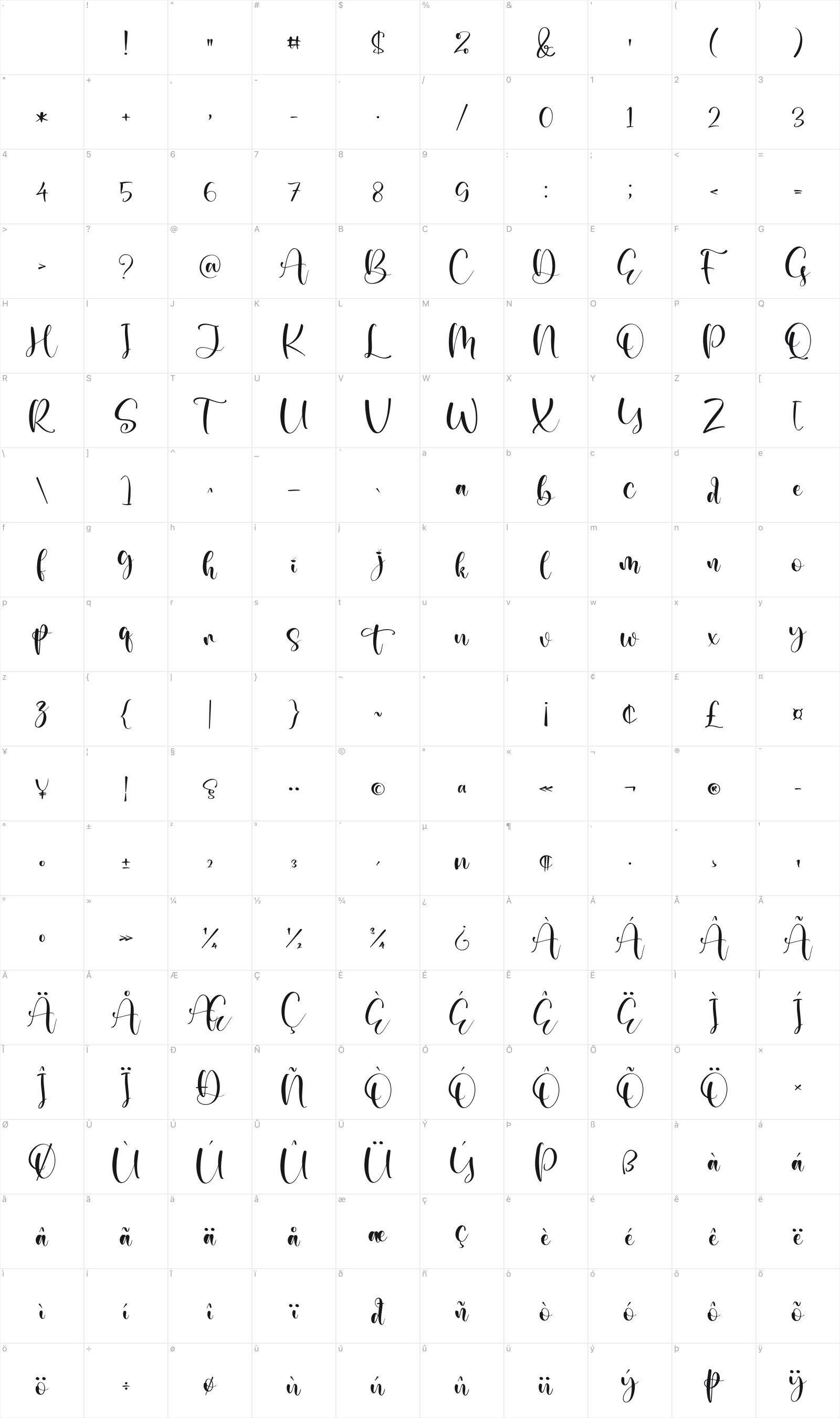
Angelove
Angelove is a lush formal script with deep calligraphic roots, built on thick-thin stroke contrast and expressive, looping swashes. The letters bounce gently along the baseline and interlock with elegant flourishes that feel hand-lettered without sacrificing consistency. It carries the warmth of a personal note and the polish of a wedding invitation.